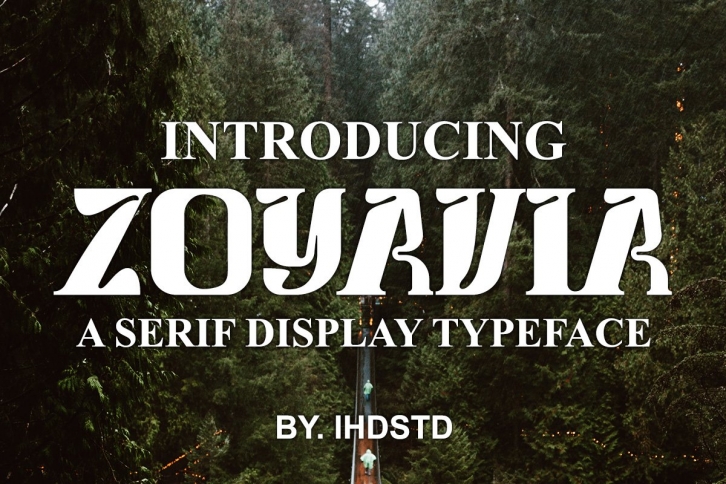
Zoyavia Serif Display Typeface is a gorgeous font that was realeased on June 8, 2022. The font can be used in many style contexts and design environments. Perfect for invitations, magazines, websites, logos, and more! It was designed by IHDSTD and the file size is 7.50 MB. Thanks for checking out this font!